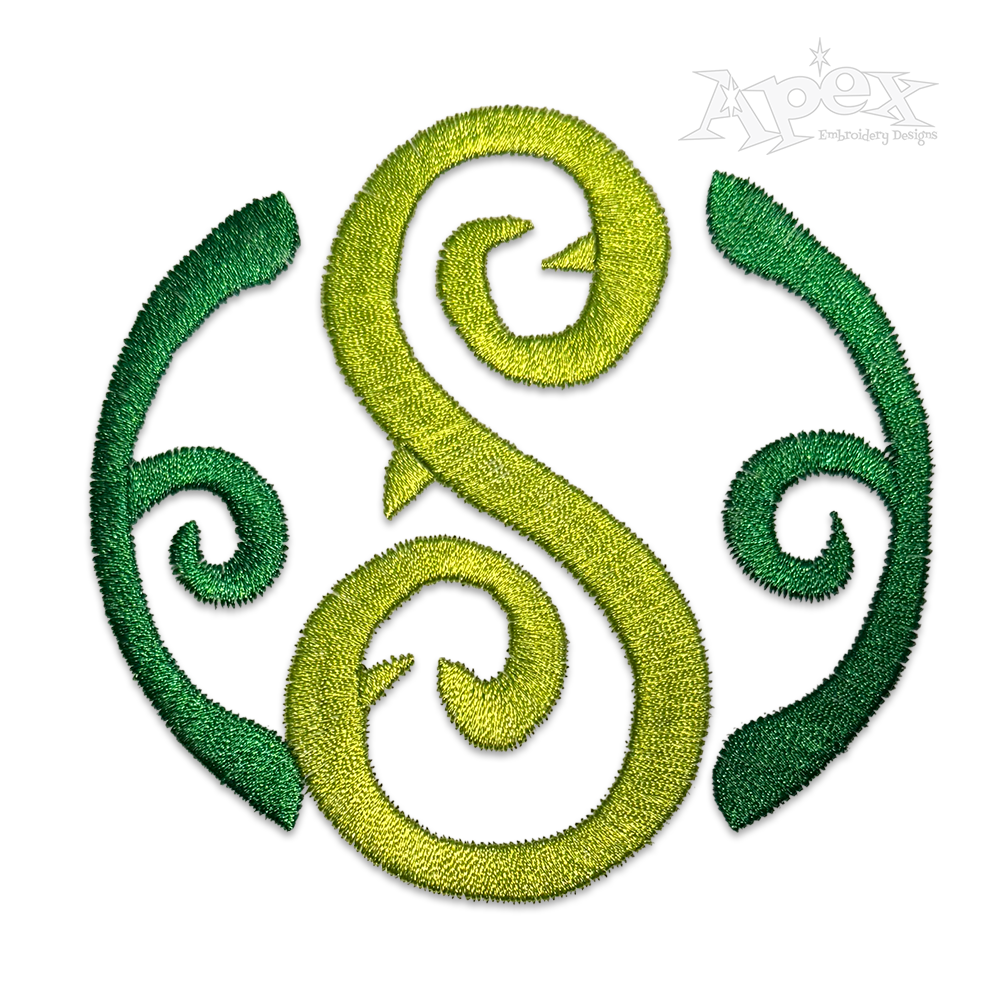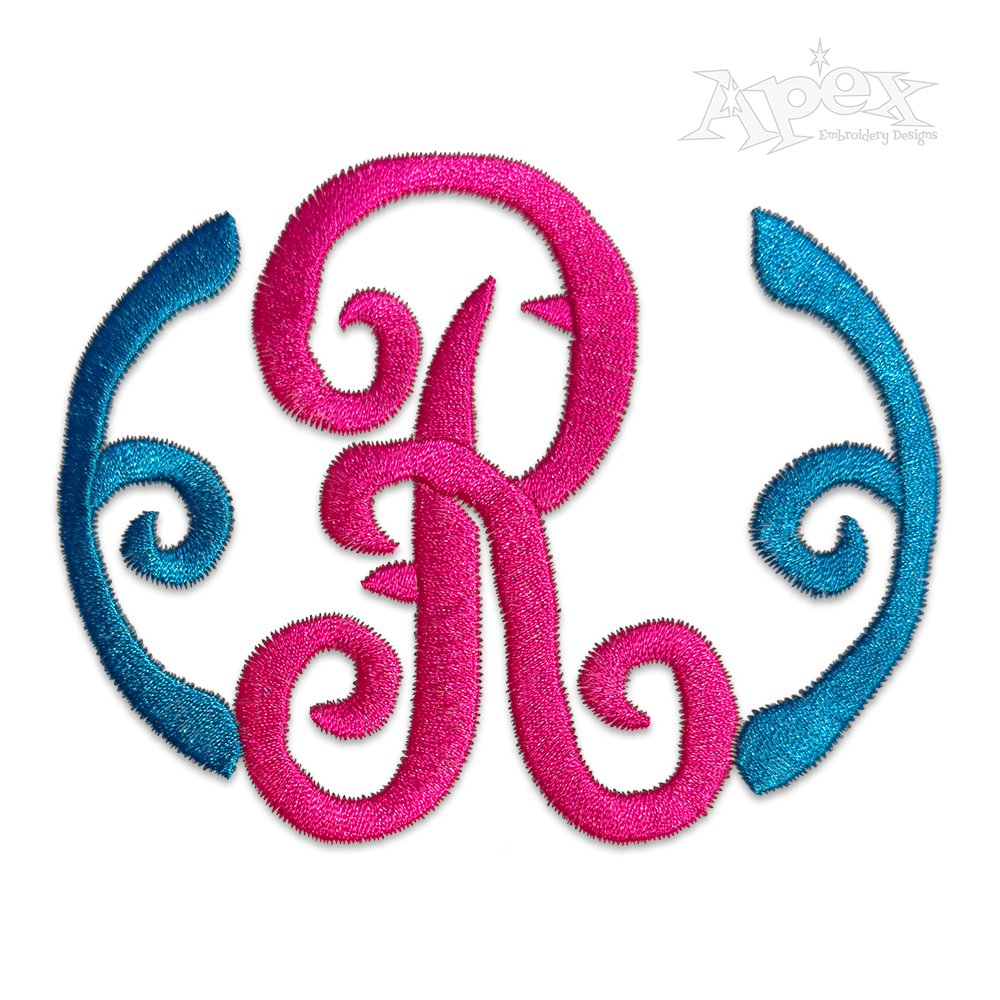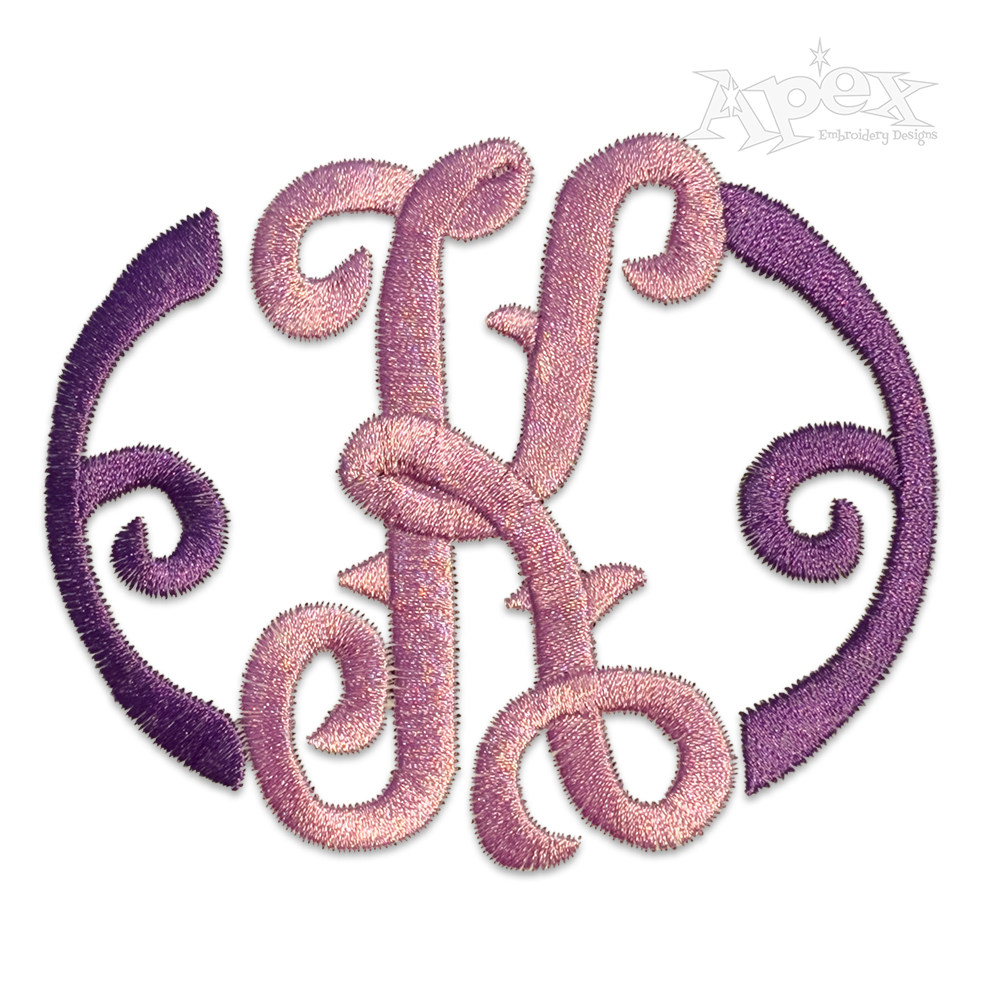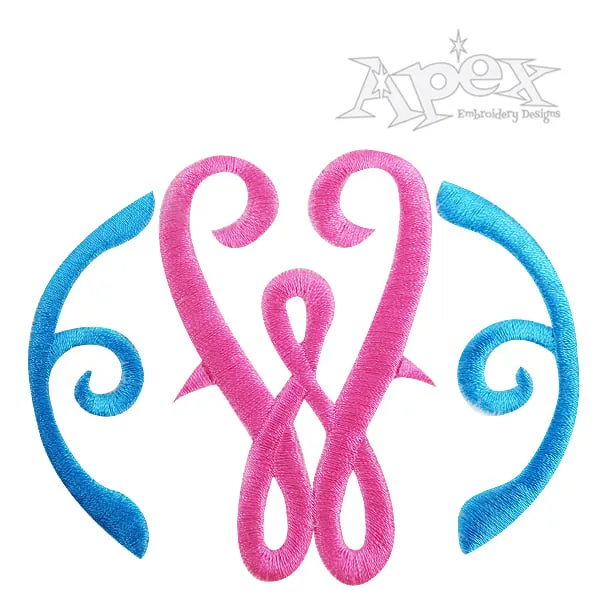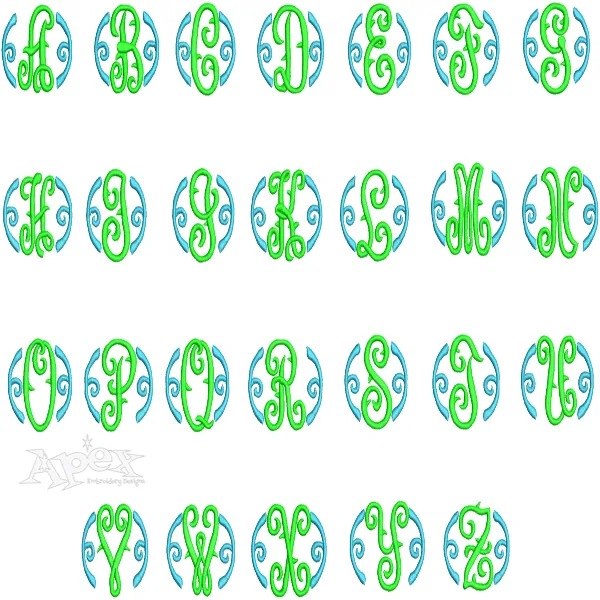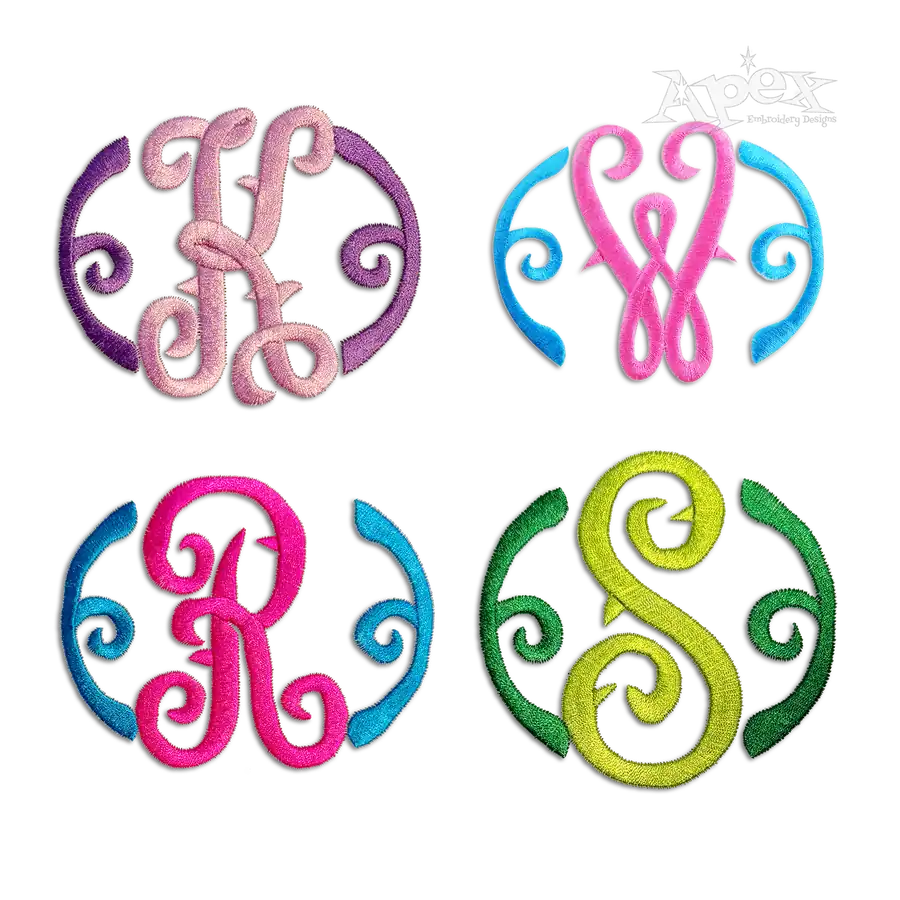
Monogram w/ends Embroidery Font
There is an innate architectural poise in an initial that effortlessly frames its own space. When digitizing the Monogram with Ends collection at our Apex studio, the vision was born from vintage gilded bookplates and the quiet grandeur of antique European hotel linens. Instead of leaving an initial to float alone or requiring manual alignment of auxiliary scrolls, each letter is artistically flanked by calibrated horizontal wings. The result is a masterfully balanced, self-contained emblem where smooth satin threads trace a graceful journey from the delicate left flourish through the stately core letter and out to the tapered right tail.
This artisanal monogram collection is digitized for versatile personalization across a range of bespoke textiles. Each letter from A through Z is thoughtfully integrated with its left and right flanking end flourishes:
Project Ideas for Monogram w/ends Embroidery Font
The distinctive winged silhouette makes this font remarkably versatile for both classical and contemporary stitchcraft:
- Luxury Table Linens: Elevate pure linen cocktail napkins, dinner runners, and placemats with crisp, single-initial place settings.
- Heirloom Bedding & Linens: Center a bold initial along the cuff of crisp percale sheets, linen pillowcases, or the center of a tailored Euro sham.
- Bridal Robes & Wedding Keepsakes: Stitch personalized bridal party gifts in soft pearlescent or metallic threads onto satin robes, ring bearer pillows, and heirloom handkerchiefs.
- Bespoke Resort Wear: Enhance relaxed linen shirts, classic polo chest yokes, and lightweight summer cover-ups with elevated custom monogramming.
- Structured Canvas Totes: Personalize heavy-duty boat totes and weekender bags with high-contrast, durable thread choices for unforgettable personalized gifting.
To showcase the graceful horizontal symmetry of this design, placement should harmonize with the surrounding textile boundaries:
- Corner Diagonal Placement: On square dinner or cocktail napkins, orient the monogram at a 45-degree angle in one corner, positioned 1.5 to 2 inches from the hemstitched edge for an authentic bespoke finish.
- Center Chest & Pockets: Position the motif squarely between the placket and side seam on garments, ensuring the horizontal side ends lie parallel to the shoulder line.
- Guest Towel Borders: Center the monogram horizontally on decorative hand towels, hovering approximately 2.5 to 3 inches above the dobby border or lower edge.
- Accent Pillows: Position directly in the visual center of standard throw cushions, allowing the ornamental ends to draw the eye outward across the fabric surface.
Monogram w/ends Craft & Letterform Details
The magic of the Monogram with Ends lies within its subtle digitizing mechanics. Merging decorative embellishments with a central serif letter requires exacting stitch geometry. Each horizontal wing is engineered with gradual density shifts, allowing the slender feather-weight tips to build density progressively as they join the main stem. This deliberate taper prevents excessive thread buildup at the convergence points, yielding a clean, flat stitchout devoid of unsightly lumps.
Beneath the surface, directional underlay pathways anchor the knit or woven weave, locking down fabric grain before the glossy satin columns glide overtop. Angles have been manually sculpted letter by letter so that light catches every curve dynamically—reflecting thread sheen uniformly across both the sweeping flourishes and the structural serifs. It is this artisan-level digitization that transforms simple thread into a timeless monogram worthy of generational keeping.